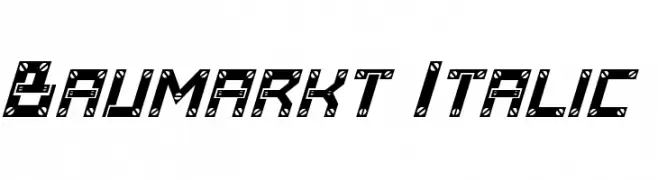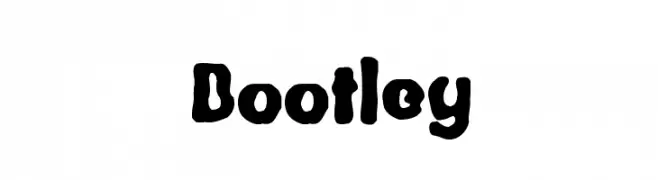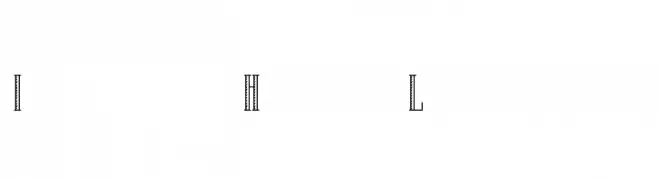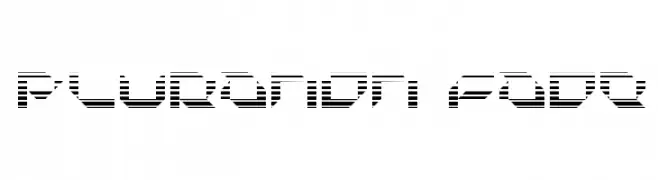
( Fonts by Patrick Broderick )
A bold, playful font with rounded, irregular strokes and a handcrafted feel.
( Fonts by Matthew Welch - www.squaregear.net/fonts/ )
A playful and modern font with rounded characters and unique dot patterns.
( Fonts by Dave Fabik - home.teleport.com/~dfabik/ )
A bold, blocky font with a filled stone-like pattern, perfect for impactful designs.